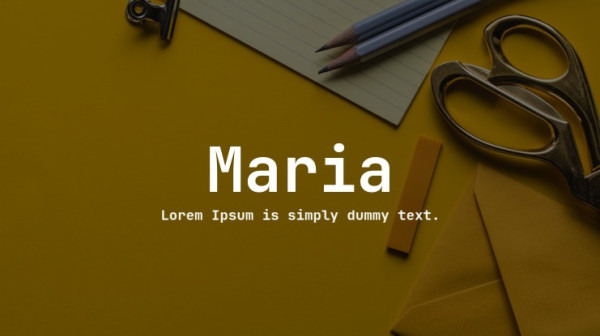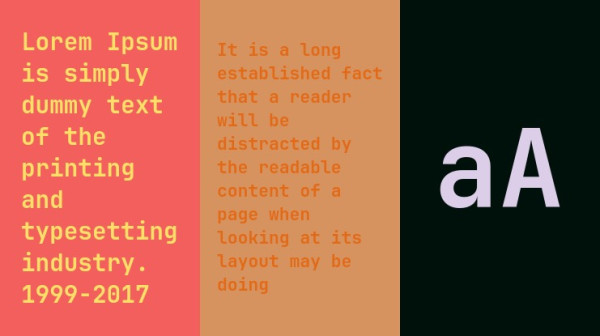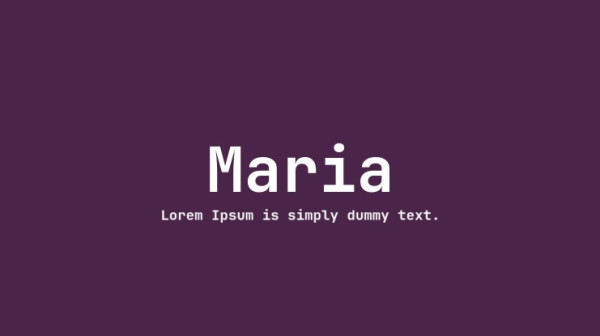
Maria Font, is a sans serif stunning when combined or separately. This sans serif font style is legible and stunningly designed. Please download and enjoy, thank you, and don’t forget to check out our other products.
Maria Font
| Classification: | Sans Serif Fonts, Style / Aesthetic Fonts |